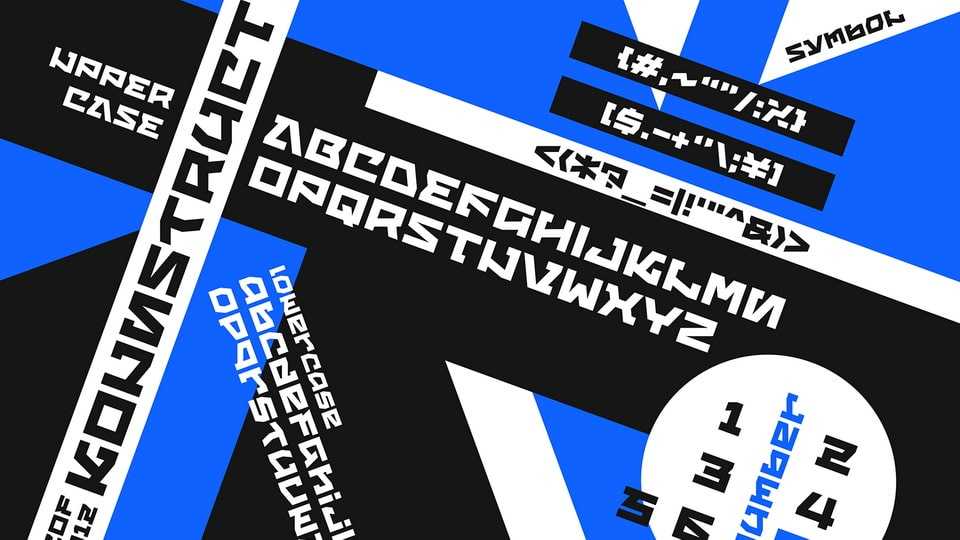
Download Kounstruct font, a bold angular display typeface inspired by the works of constructivists of the early XX century. With its strong and impact look, Kounstruct font is good for posters, headlines and editorial use.
Designer: NC Empire